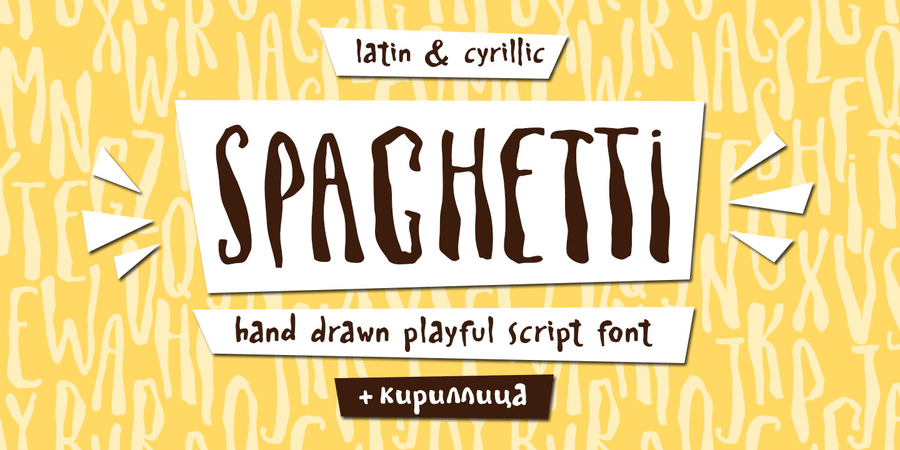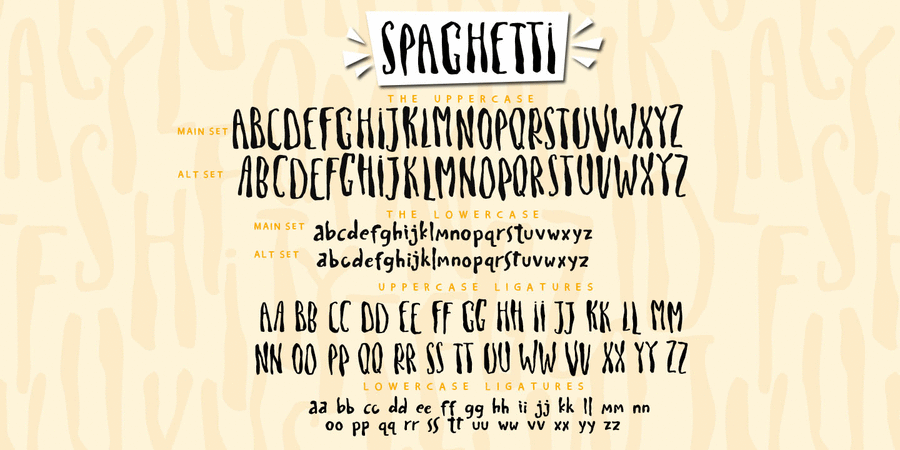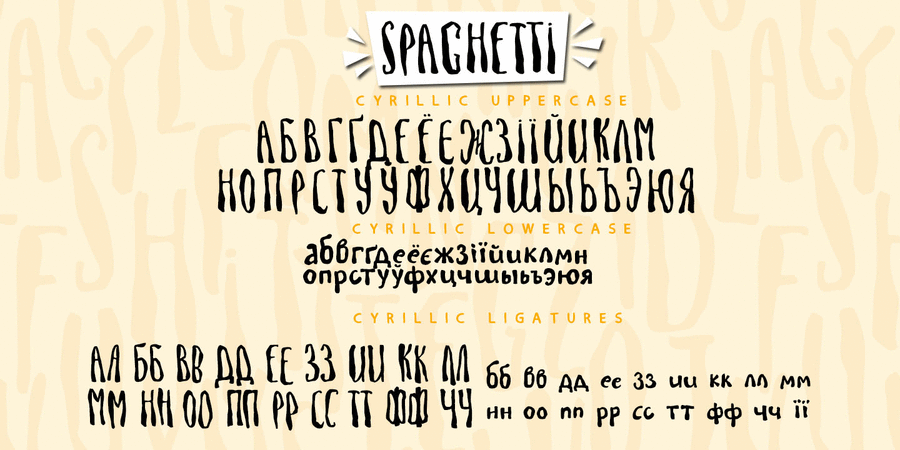
About SPAGHETTIThe Spaghetti playful cute font includes the main & alternative uppercase, and main & alternative lowercase, and the full set of double letters in an upper and lowercase, and large range of numerals and punctuation. The Spaghetti font will be perfect for use in all your fun design projects be it logos, labels, packaging design, blog headlines. Also, it will look great on mugs, cards, kids books headlines or other typographic projects. The Spaghetti Symbols is an additional font with 52 hand-drawn doodles, catchwords, arrows, and swashes and can help to make your design more original. Combine and arrange swashes and illustrations to create your own designs and make borders, frames, dividers, logos and more (just use A-Z and a-z keys in the included Spaghetti Symbols font). A different symbol is assigned to ever uppercase or lowercase standard character so you do not need graphics software just simply type the letter you need. Extensive language support includes Western European, Central, and South East European, Cyrillic. Just type a message in the text box below and see if all the characters you’ll need are there. FONT FEATURES: contextual alternates for a more natural handwritten feel, in programs with Open type capability, 52 ligatures of double letters for a more custom look, extra stylistic alternates for all characters.PUA Encoding: Additional glyphs can be accessed through Character Map or Font Book (can copy and paste desired glyphs, when Opentype panels are not available.) The typeface was designed by Iryna Dvilyuk in 2018 and updated in 2021.